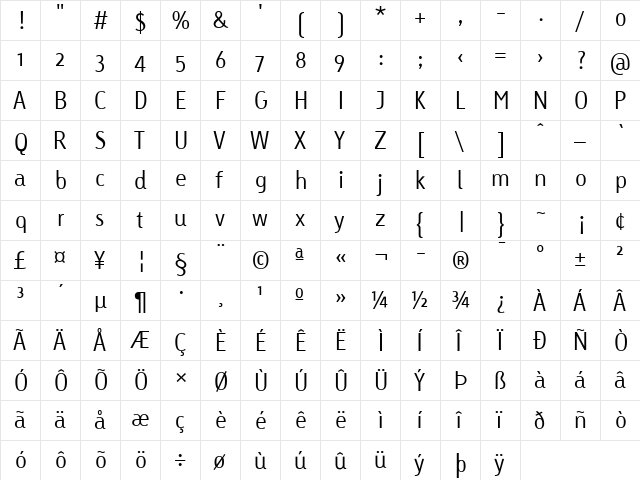
LTTetria Light Regular
Design Context for LTTetria Light Typeface
LTTetria Light is a composed and adaptable typeface that performs quietly and consistently across a wide range of design contexts. Its slender proportions lend an understated elegance to any composition.